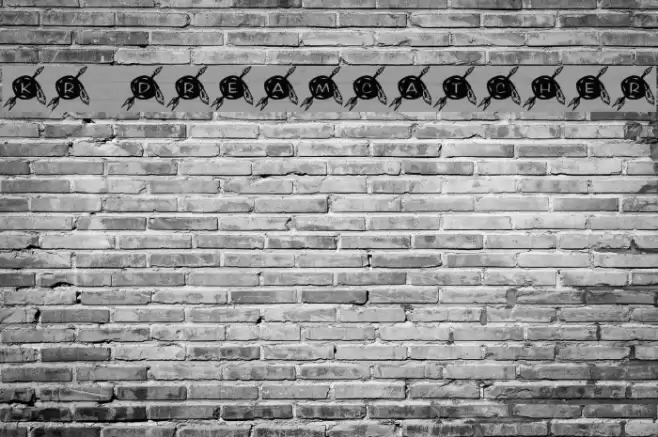
KR Dreamcatcher Font
KR Dreamcatcher Description
This decorative font features bold, uppercase and lowercase letters encased within circular dreamcatcher motifs. Each character is uniquely adorned with feathers, adding a whimsical and cultural touch. The design is intricate, with a strong emphasis on the dreamcatcher theme, making it ideal for projects that require a distinctive and artistic flair. The font's style is consistent across all characters, maintaining a cohesive look that is both eye-catching and memorable.
A decorative font with letters encased in dreamcatcher motifs, featuring feather details from Uncategorized fonts.
- Proposed Projects: Ideal for cultural event posters, themed invitations, artistic branding, and decorative headings.